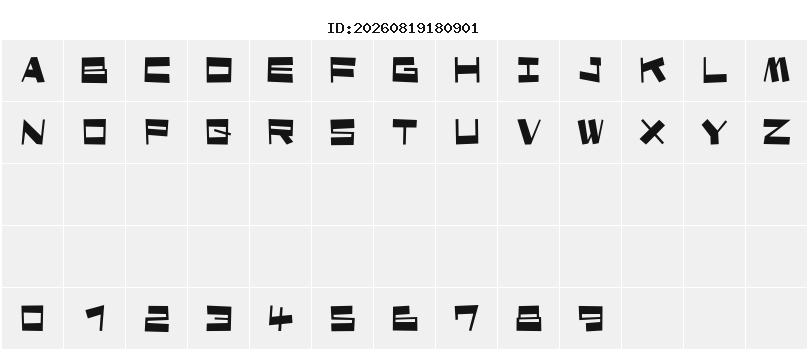
Shotaro Preview
• Font Name: Shotaro
• Full Font Name: Shotaro-Alphabet
About Shotaro.ttf
Shotaro.ttf is a modern, elegant sans-serif font designed for ultimate readability and visual harmony. Perfect for branding, headlines, web design, and print materials.